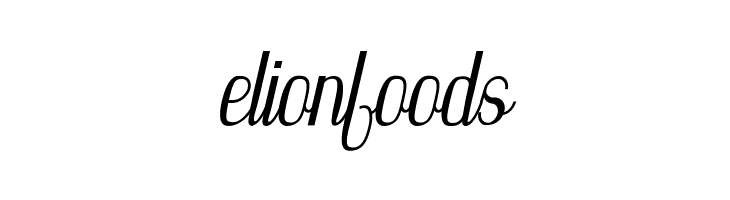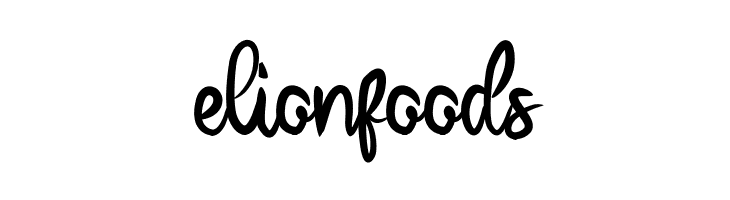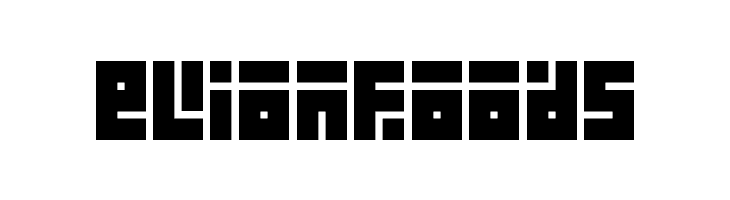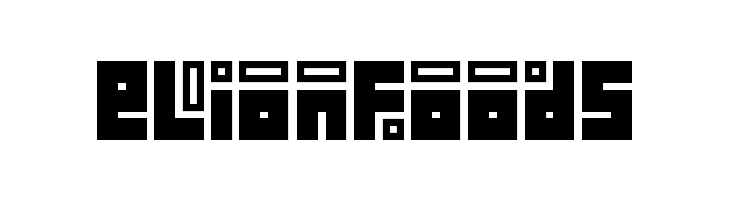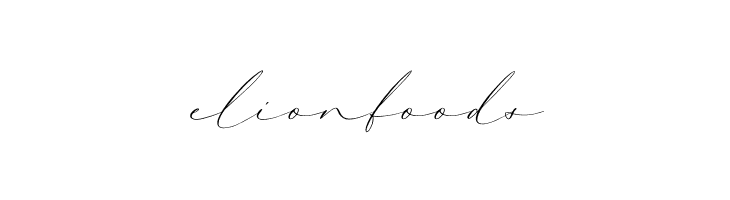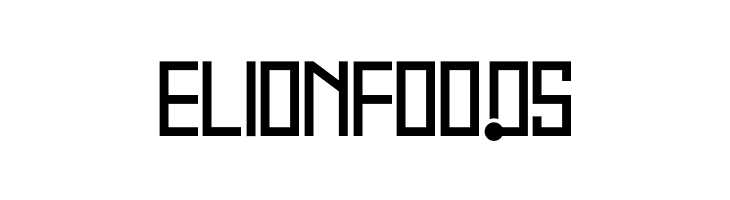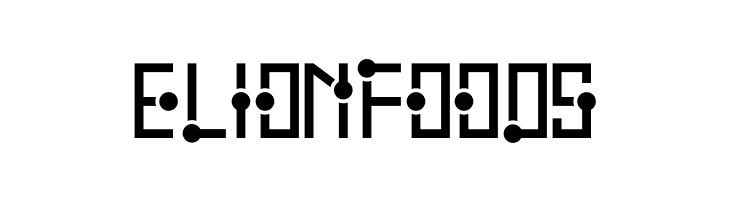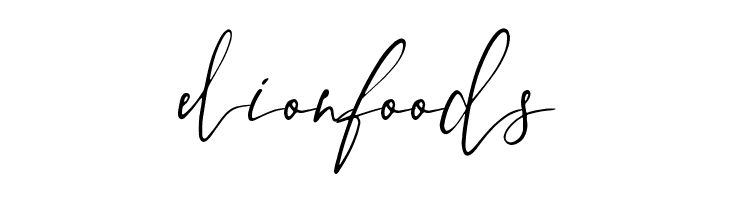
A bold, geometric font with a modern, decorative style.
A bold, geometric font with a maze-like, modern design.
A bold, geometric font inspired by Kufic script with a modern, digital twist.
A bold, hand-drawn font with a textured, brush-like appearance.
A stylish and elegant script font with flowing, connected letterforms.
A geometric, futuristic font with bold, angular shapes and clean lines.
A futuristic, geometric font with bold lines and circular nodes.
An elegant script font with graceful curves and intricate details.
A playful, handwritten font with fluid strokes and a dynamic slant.
A modern, handwritten script font with fluid, connected letters.